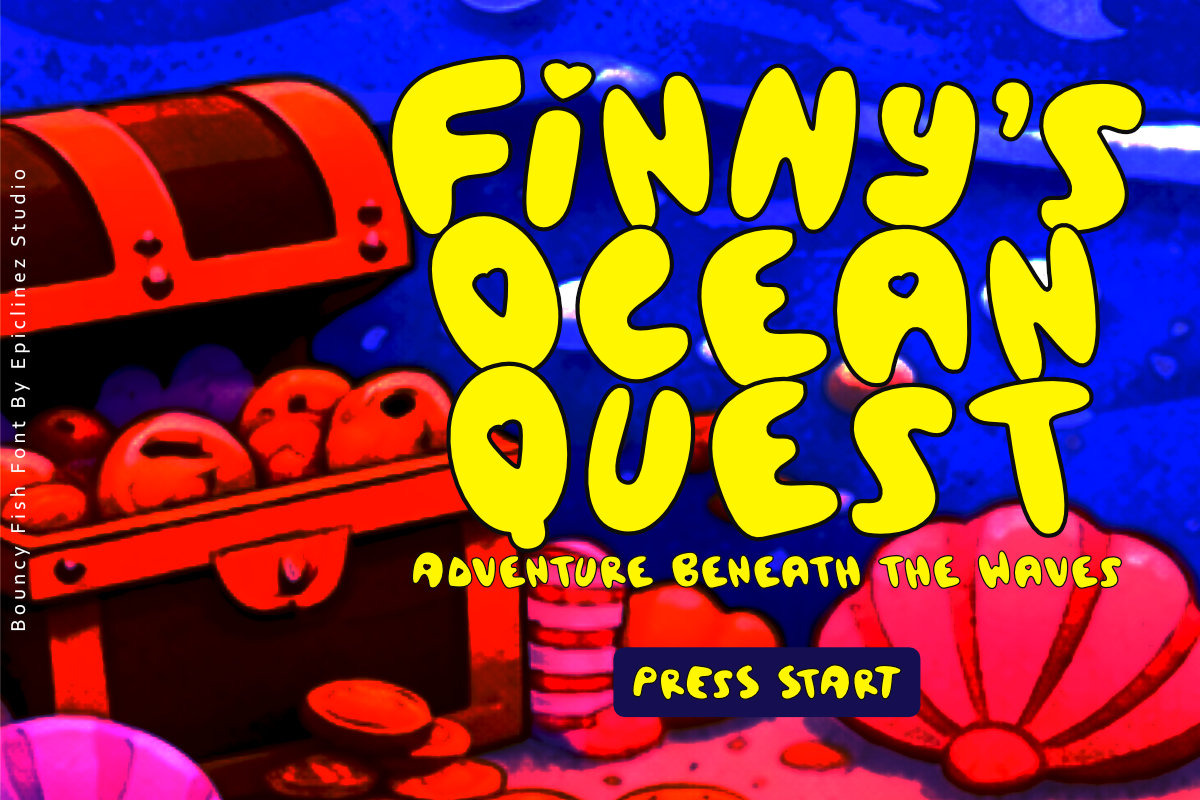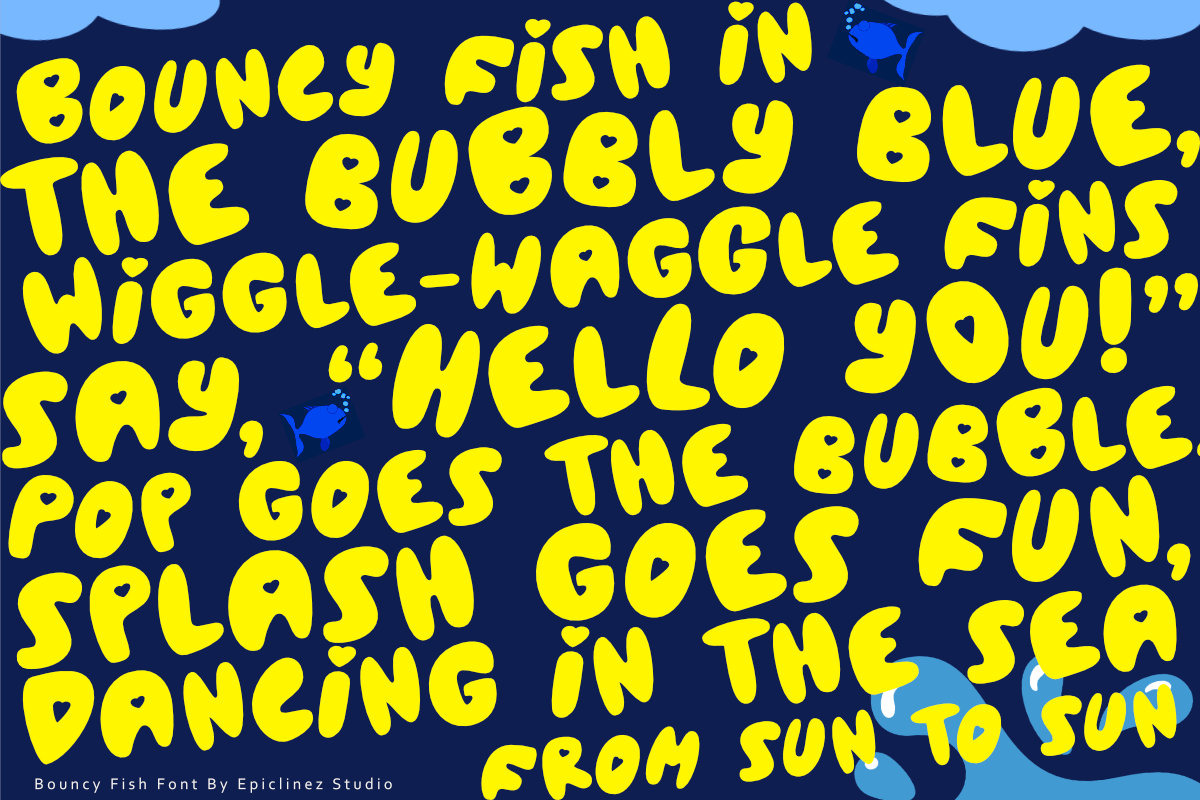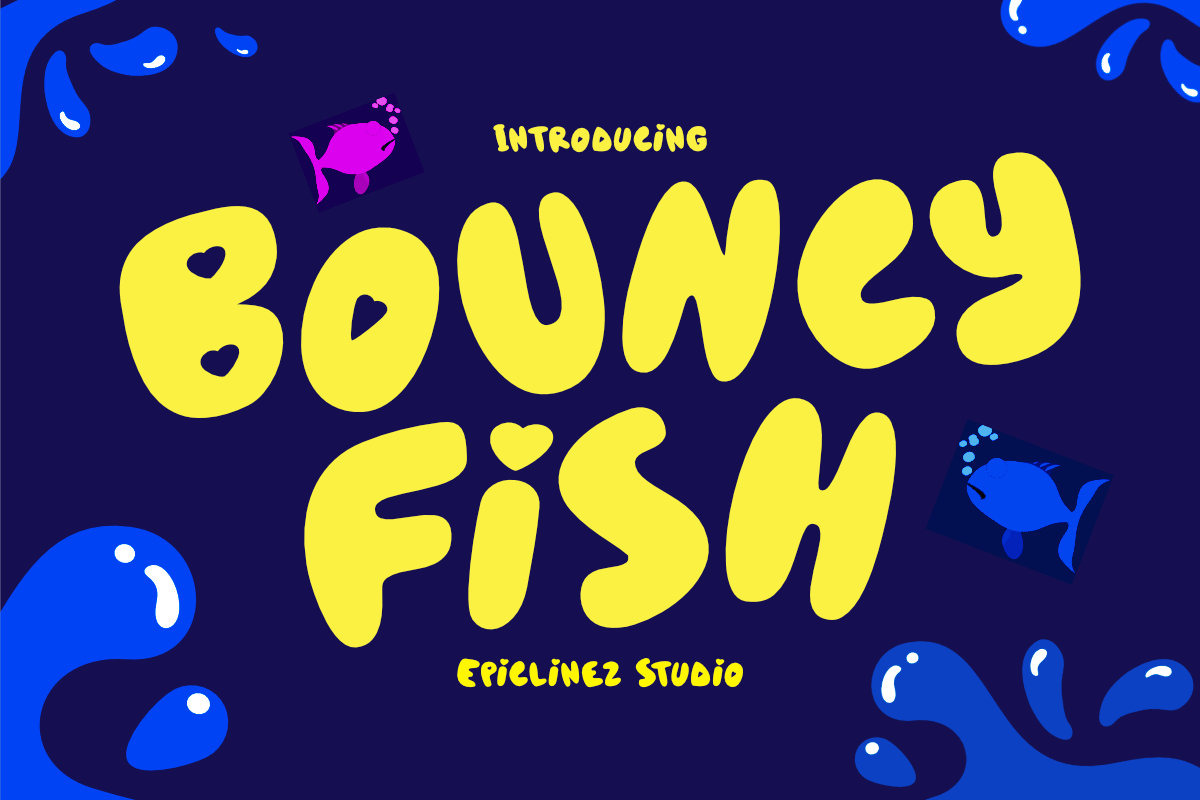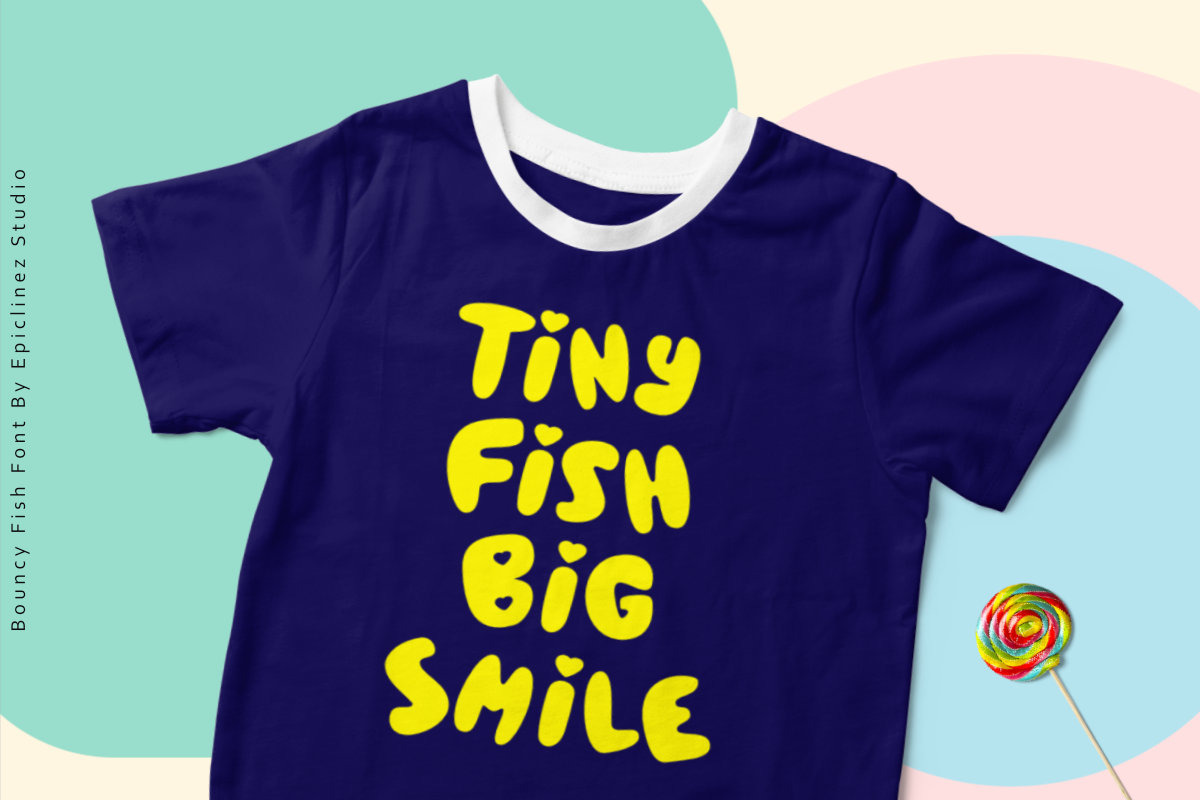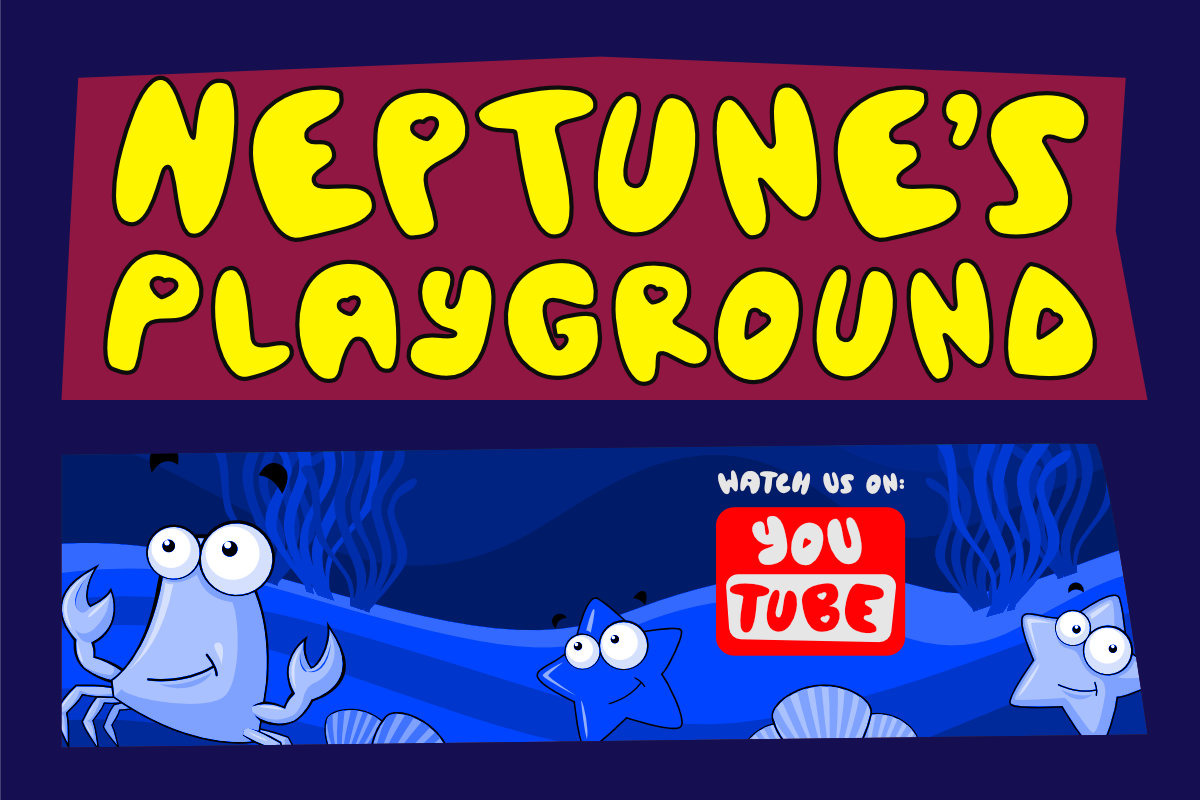
Bouncy Fish Font
Bouncy Fish is a cute, playful display font inspired by happy ocean vibes and bubbly fun. With its rounded shapes, soft curves, and joyful personality, this font feels lively, friendly, and full of motion—just like a little fish bouncing through the sea.
Perfect for kids' projects, children’s books, water park branding, aquarium themes, games, toys, apparel, stickers, packaging, and cheerful logos. Bouncy Fish brings a sense of fun, innocence, and imagination, making every design feel bright, warm, and full of smiles.
Whether you’re creating a kids game title, playful clothing brand, or ocean-themed illustration, Bouncy Fish adds instant charm and friendliness to your typography.